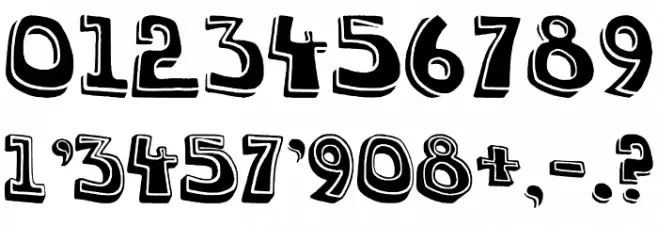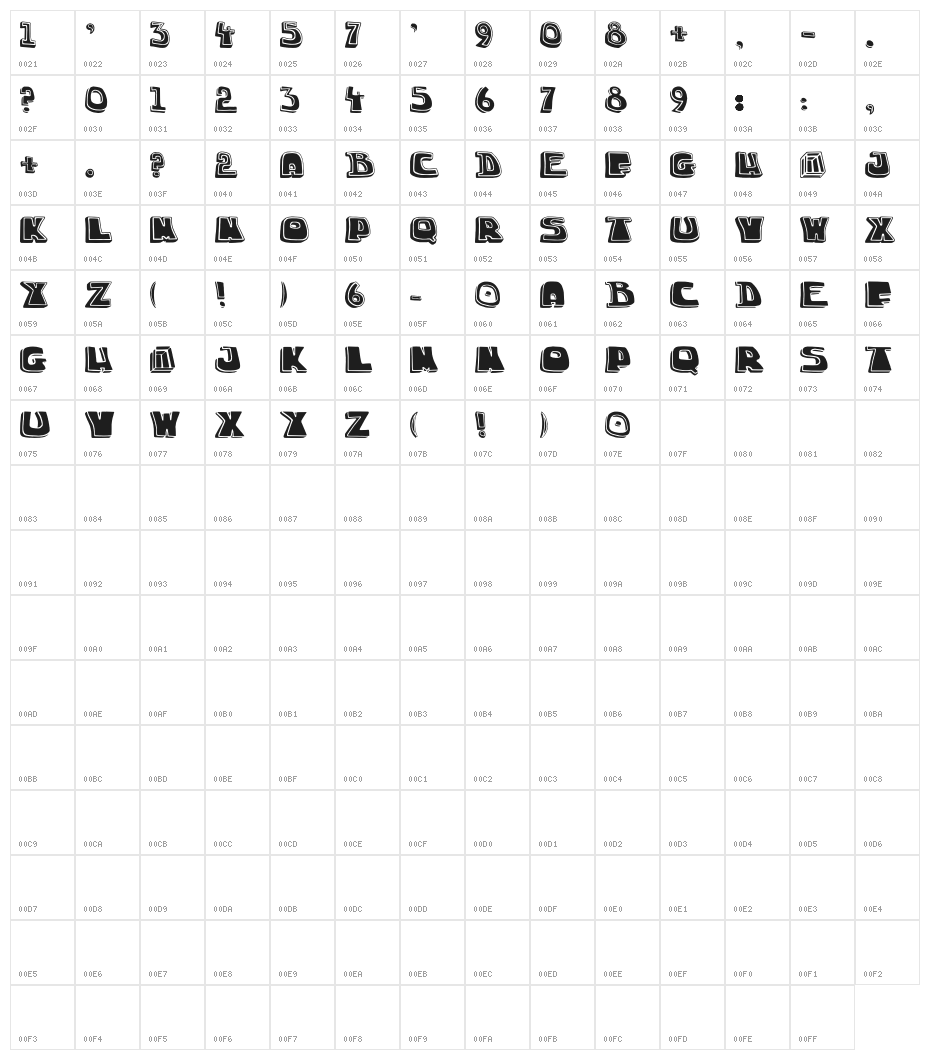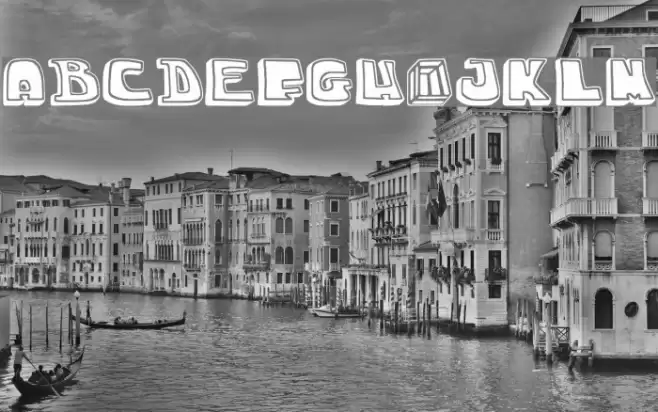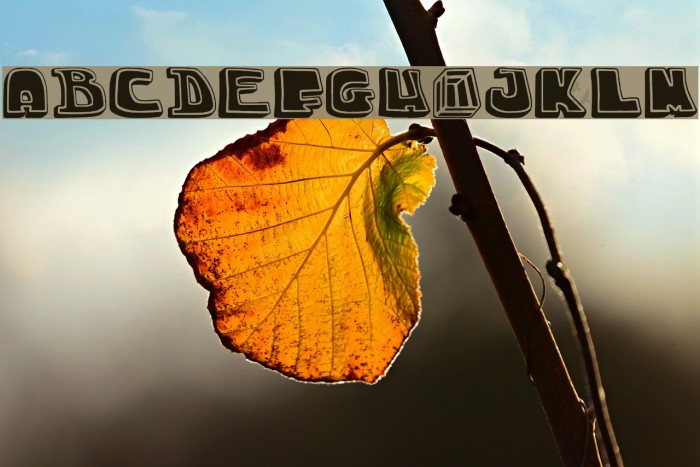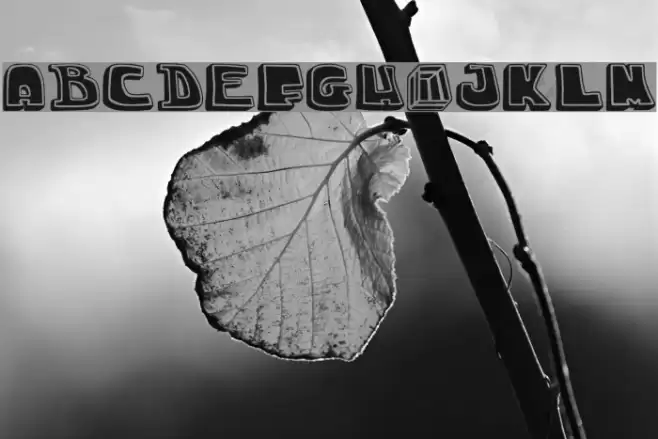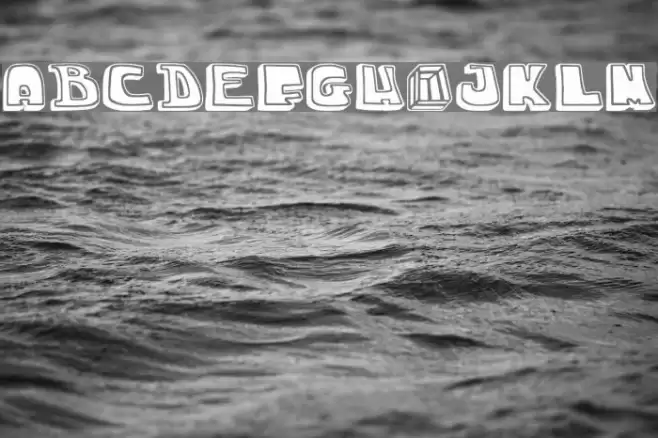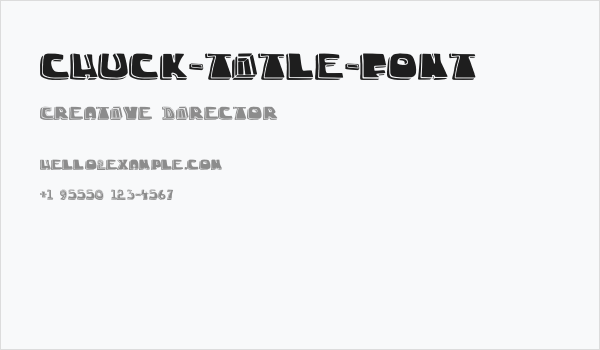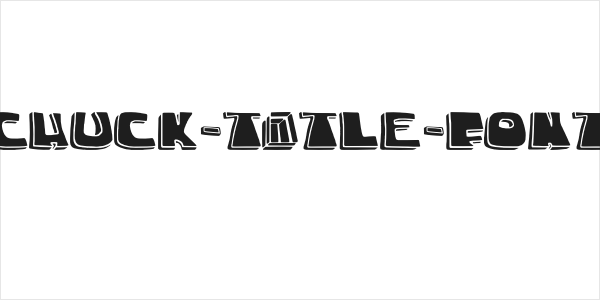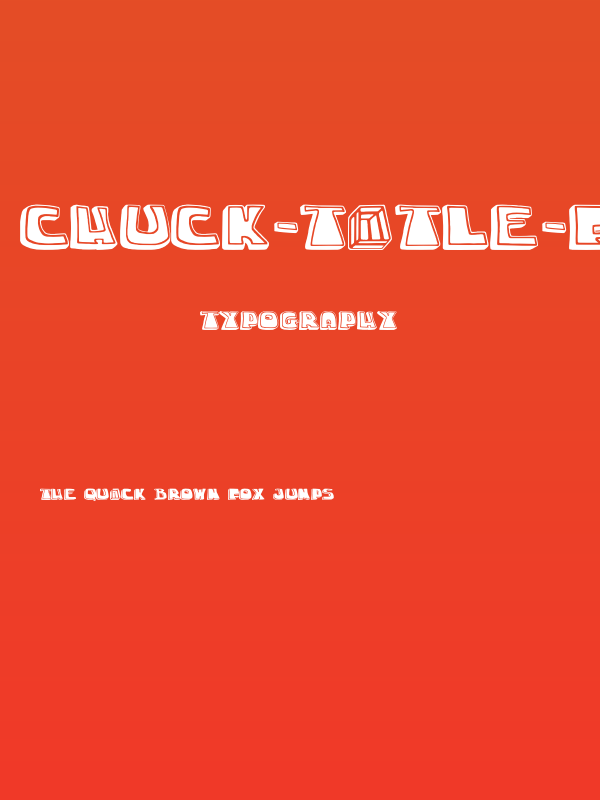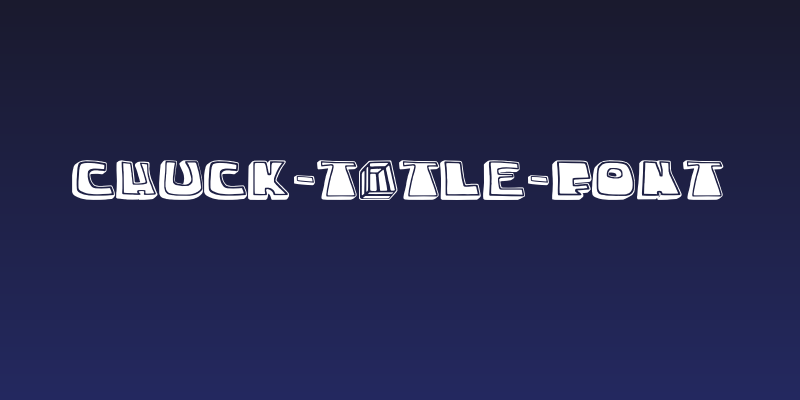
chuck-title-font Font
chuck-title-font Description
This bold, decorative font features a playful and dynamic style with a three-dimensional effect. Each character is outlined with a thick black border, creating a strong visual impact. The letters have a blocky, geometric appearance with slight variations in angles and curves, adding to the font's unique charm. The numbers and special characters maintain the same bold and playful style, ensuring consistency across all elements. This font is perfect for projects that require a fun and eye-catching design.